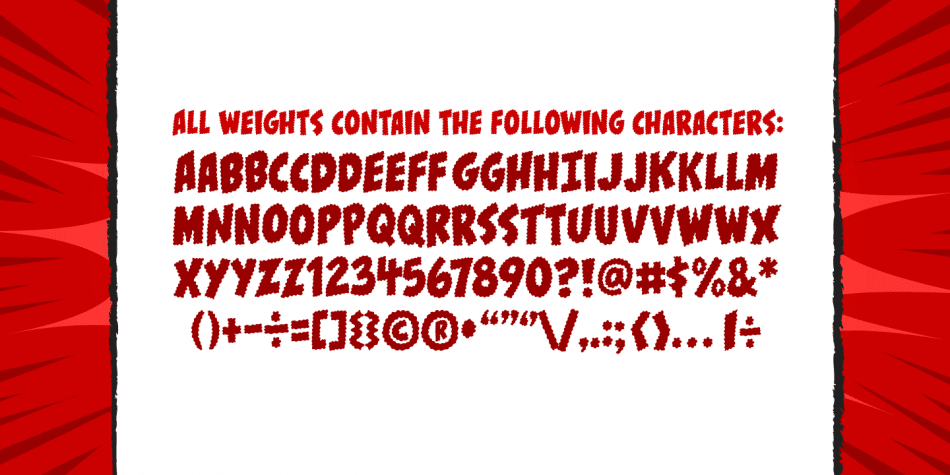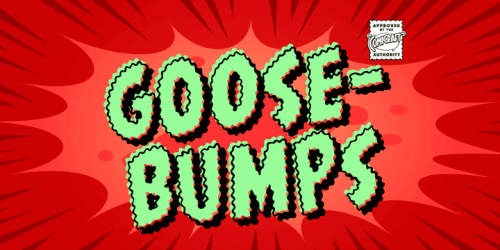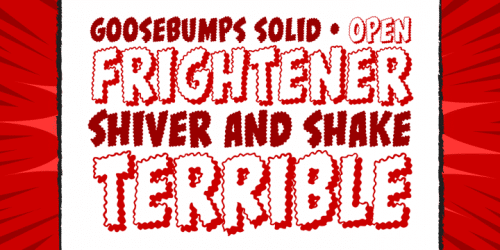
Goosebumps Font is a font that’ll send shivers down your spine, stand your hair up on end and turn your skin into gooseflesh.
Hand lettered by rotten old Richard Starkings after we locked him up in the attic one dark, stormy night, these stressed out characters are a real scream!
- Designer: Richard Starkings